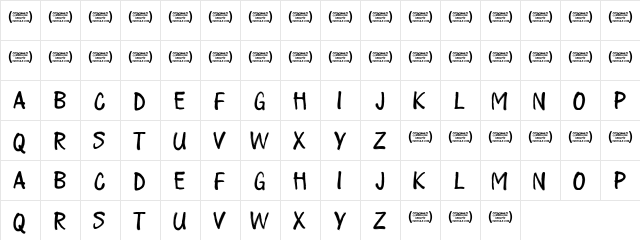
Play all day Regular
| Foundry | Font Monger |
| Designer | Chris Vile |
Design Context for Play all day Typeface
Play all day takes a measured approach to typography — its balanced proportions and neutral character make it a reliable workhorse for both digital and print work.